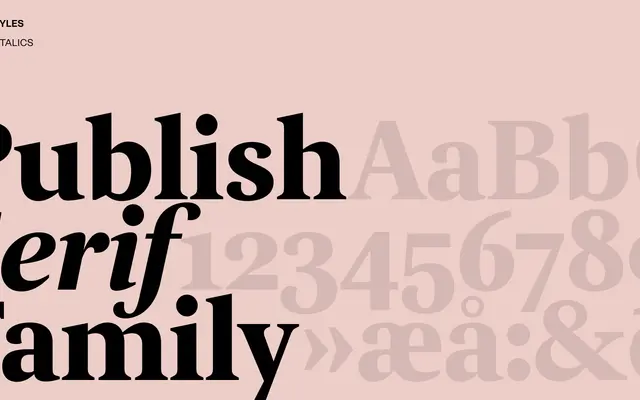
Publish Serif specimen from Playtype
A serif typeface from Playtype aimed at editorial and long-form publishing contexts.
Positioned for editorial use, the typeface carries the hallmarks of a text-oriented serif suited to body copy and literary settings. The sample text on the product page leans heavily on a narrative, fashion-world register, suggesting a typeface designed to carry extended reading with some warmth. Details on weights and language coverage are not disclosed on the page.
The name and editorial sample text suggest a serif typeface suited to publishing contexts, consistent with transitional or text serif conventions.